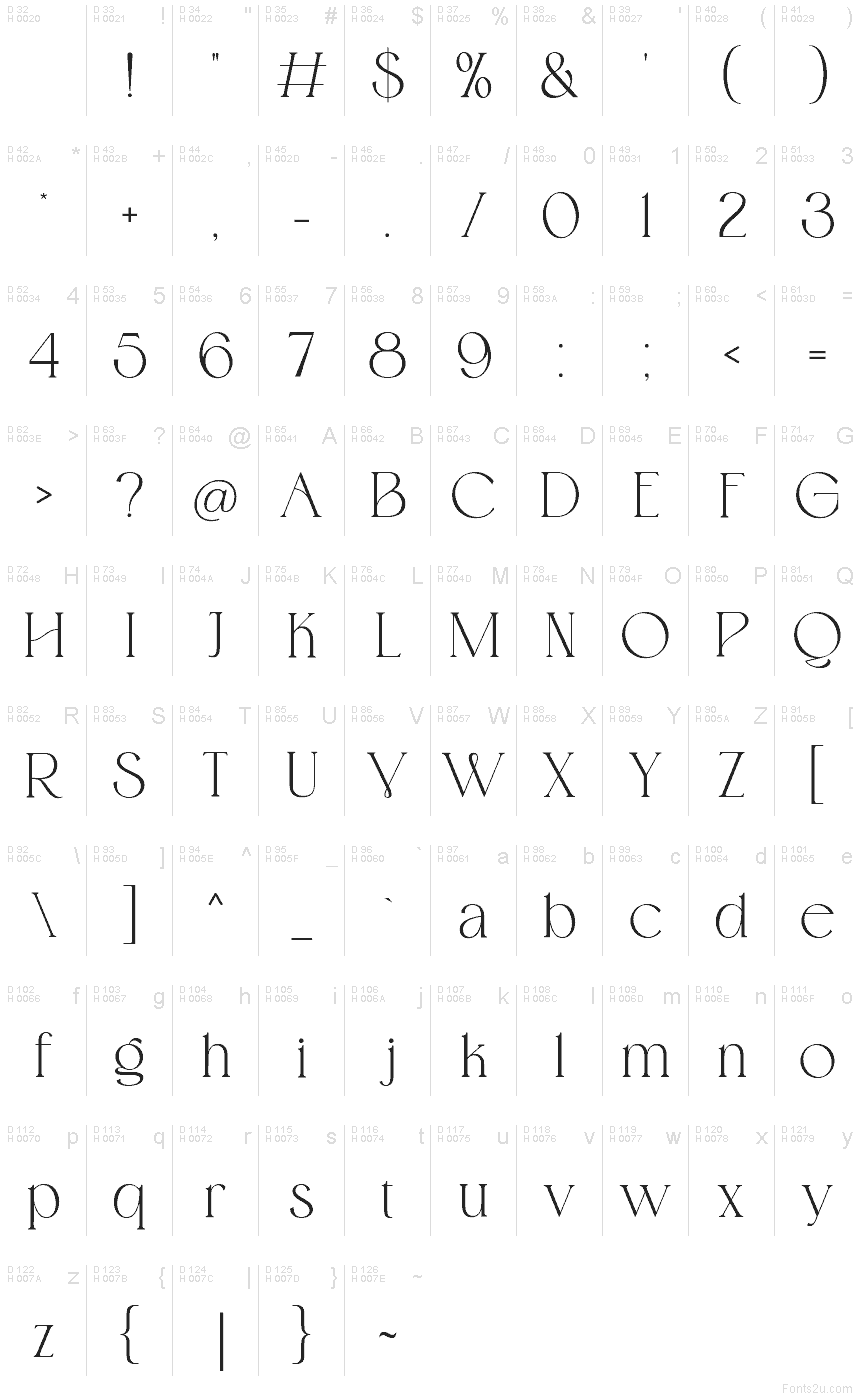
Gemola
Gemola font by HansCo is a free high-contrast serif font. It stands out with razor-fine hairlines meeting polished, weighty verticals, giving each letter a jewel-cut precision. Rounded bowls feel smooth and glassy, while knife-edge serifs leave crisp little flicks at the baseline—elegant without going brittle. The rhythm is tight but poised, so headlines lock in with a luxe, editorial snap.
Using Gemola, your titles carry a fashion-forward sheen that shines on luxury branding, beauty packaging, editorial mastheads, wedding suites, boutique logos, and perfume ads. This free font rewards big sizes and generous white space; add a touch of letterspacing for extra glow. For balance, pair it with a quiet, modern sans to handle body copy and let Gemola steal the spotlight.